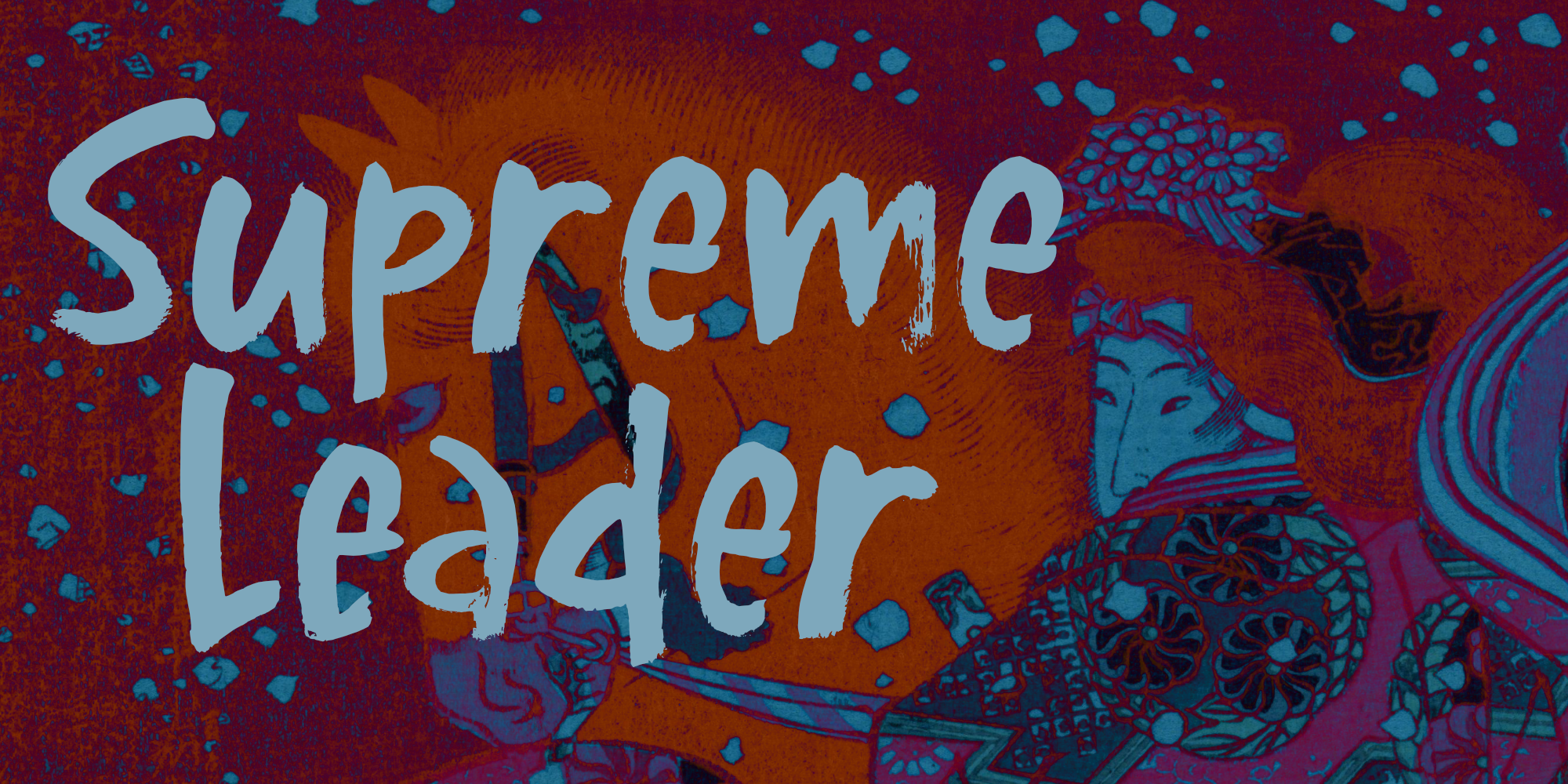
Supreme Leader
I was watching a science fiction movie with my son Boris the other day. It had a character in it called the ‘Supreme Leader’. I thought that title was hilarious, so I decided to name a font after it.
Supreme Leader is a handmade brush font. I created it using Chinese ink and an old brush I have been using for a while now. Supreme Leader comes with extensive language support and a full set of alternates for the lower case letter.